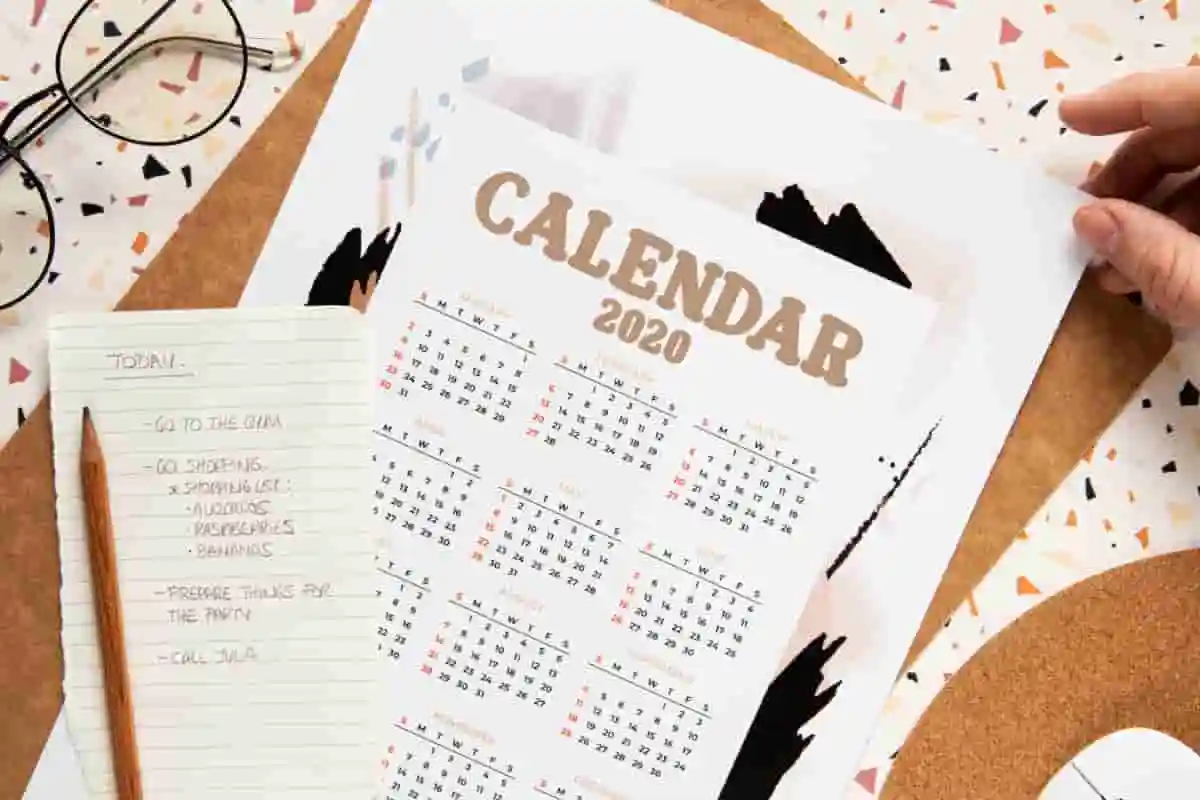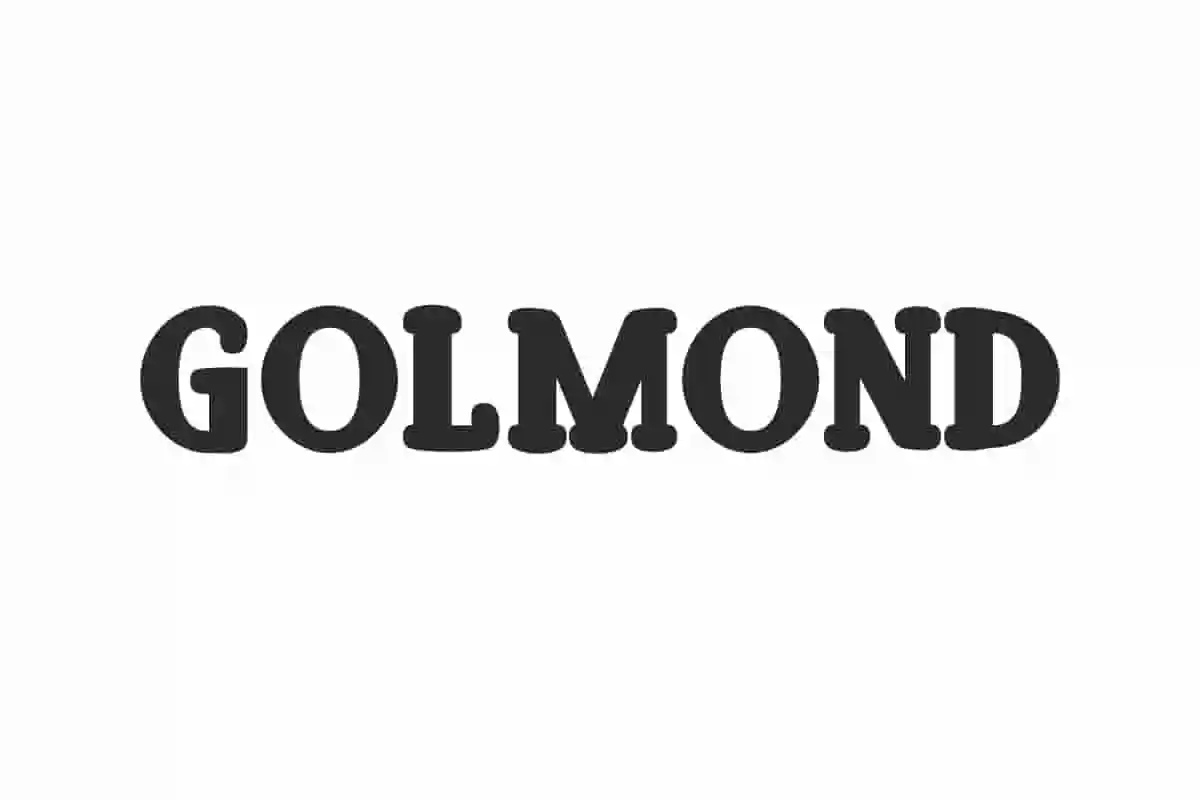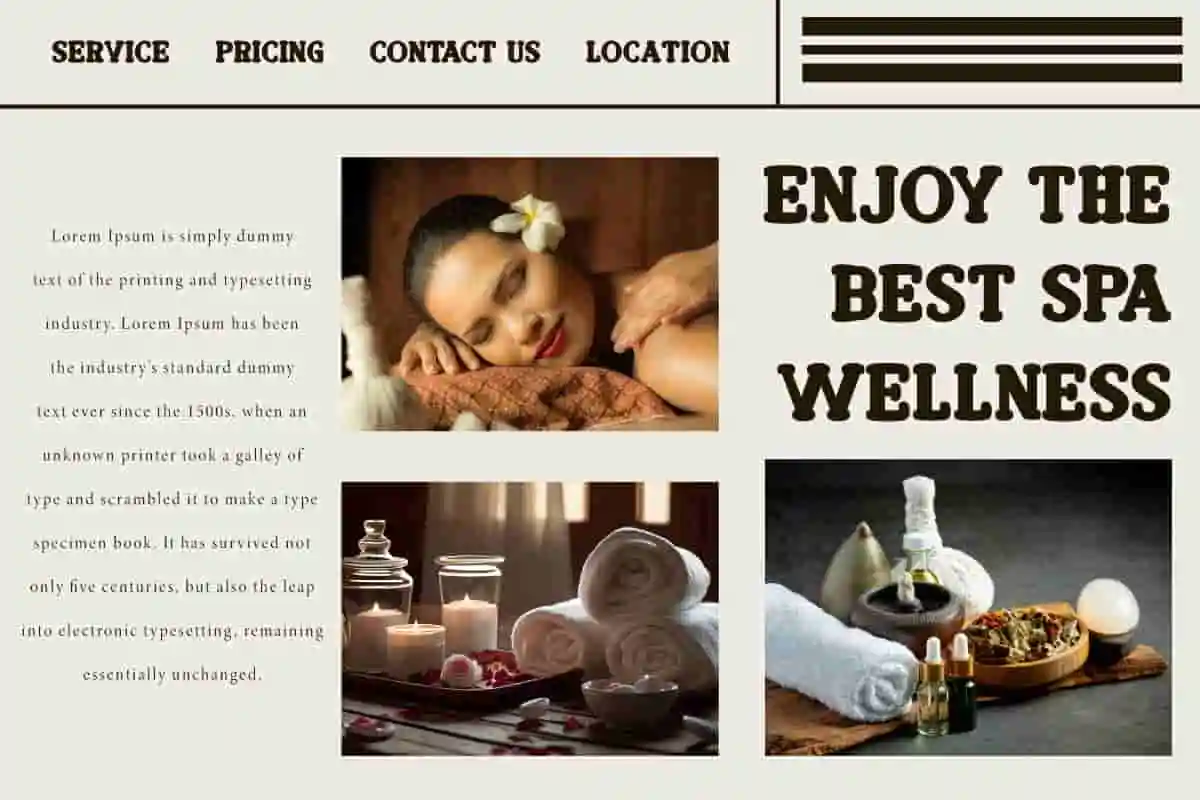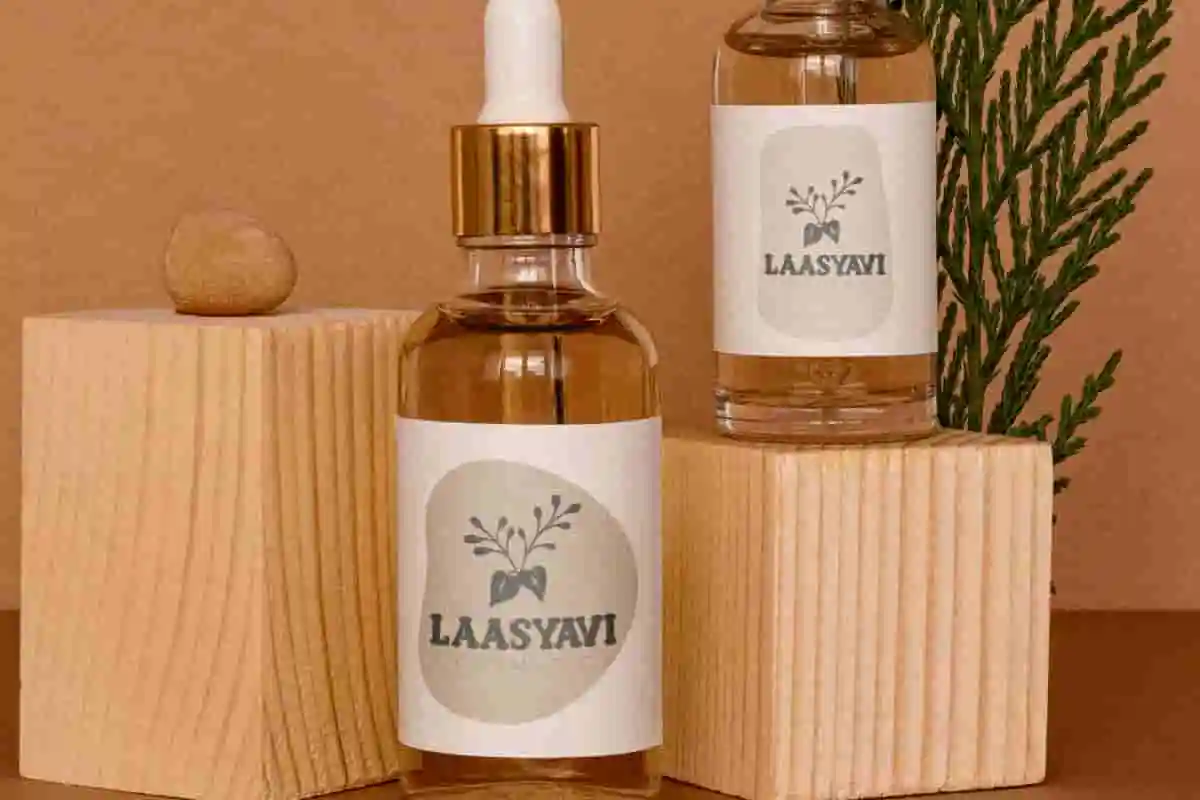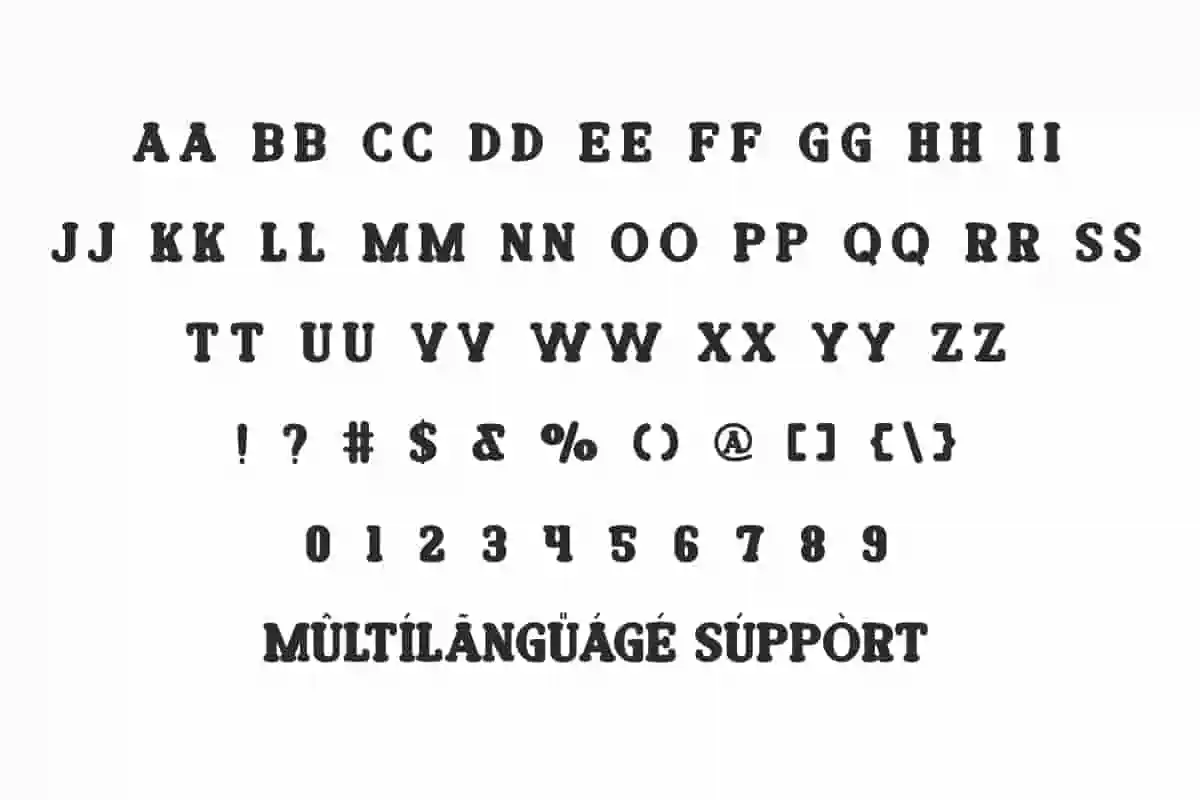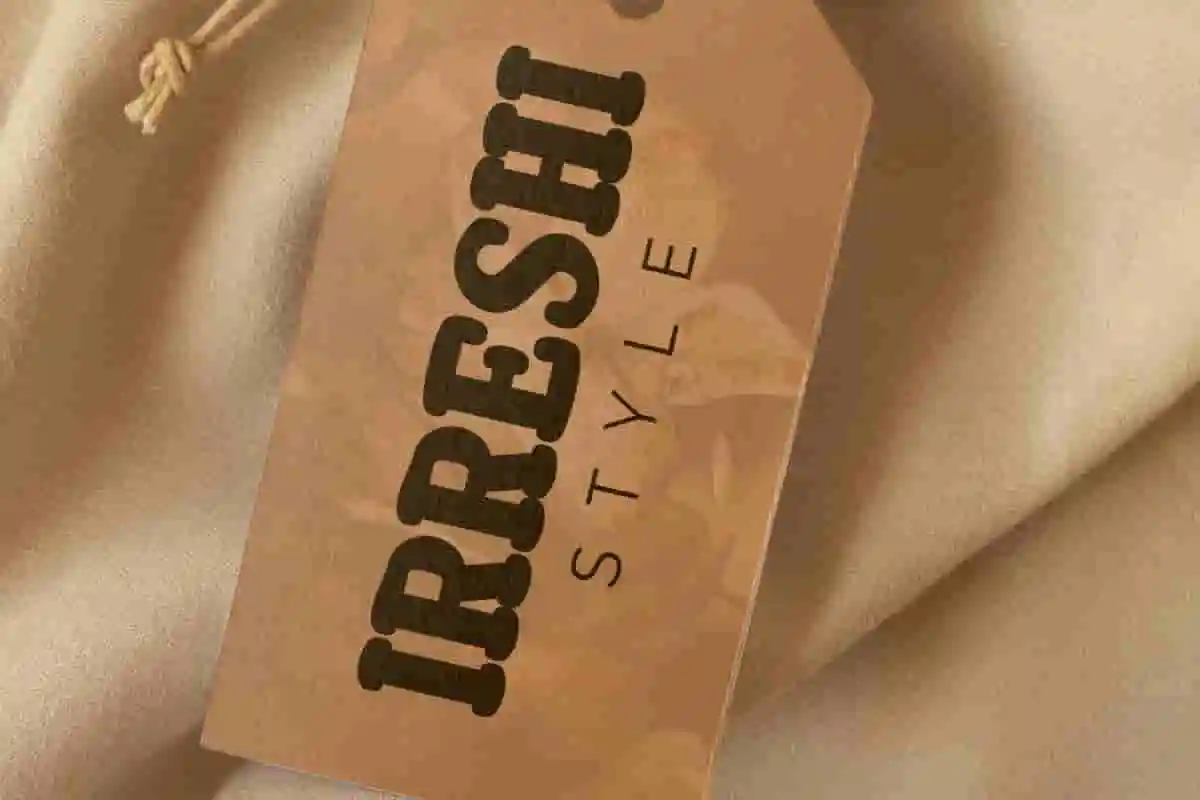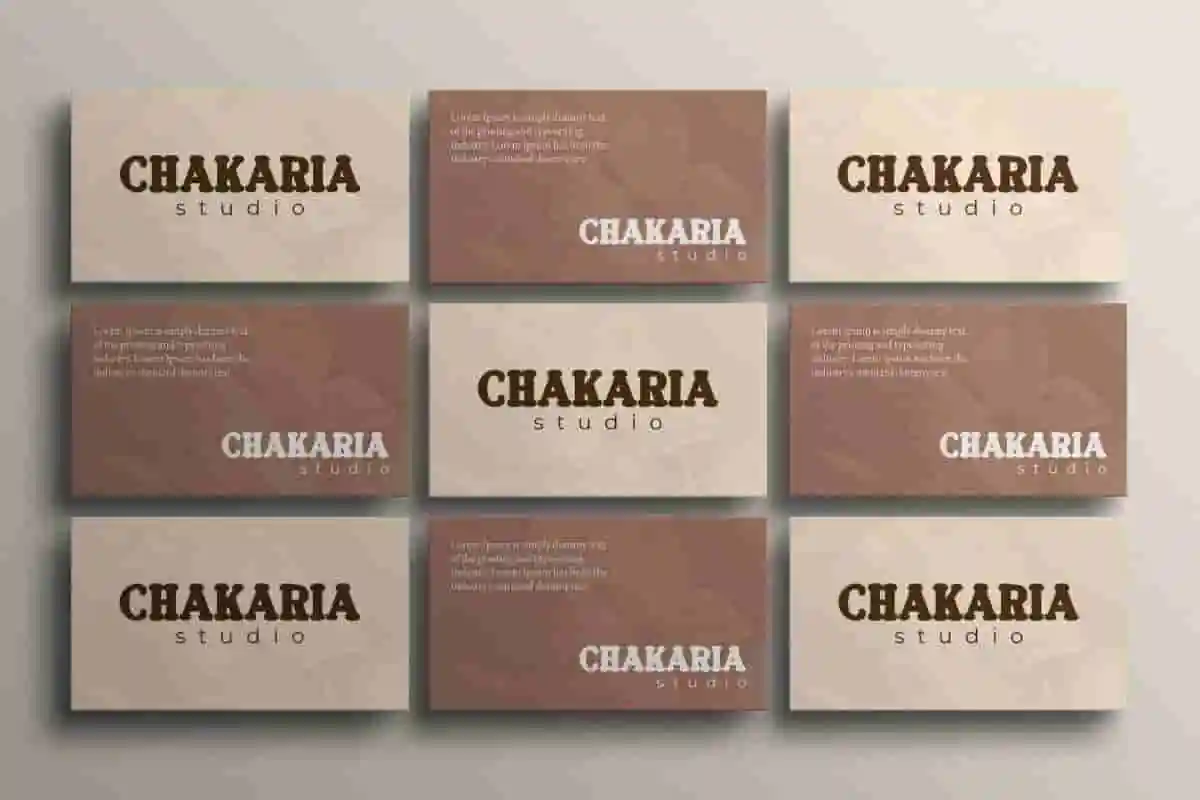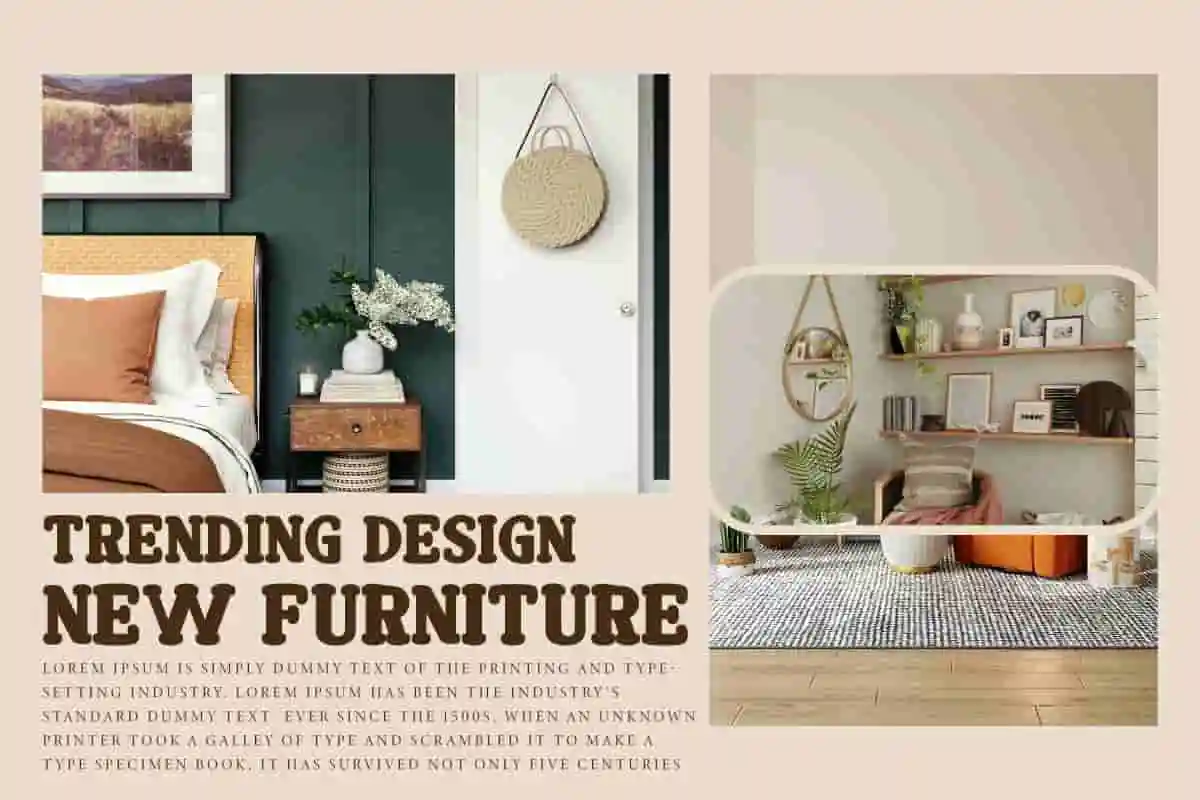
Golmond Font is a stylish retro display font that makes this font unique with its consistent thickness. This font is perfect for any retro design project.
Golmond Font is a charming display font that embodies a delightful retro and funky aesthetic, characterized by it’s unique and playful design. The rounded letterforms and cheerful characters create a sense of nostalgia, making it a perfect choice for blogs, bussines card, headers, label tag, poster, printed materials, produck packaging, stickers, titles, template, website, etc.
Golmond Font includes full set of ALL CAPS characters for both Uppercase and Lowercase, Numbers, Punctuation and Symbols. The rounded letter elements contribute to its cute and friendly appearance. This unique design is ideal for a variety of creative projects, such as advertising, apparel, fashion, home furniture, photo studio, printing, spa salon, skincare, and more.